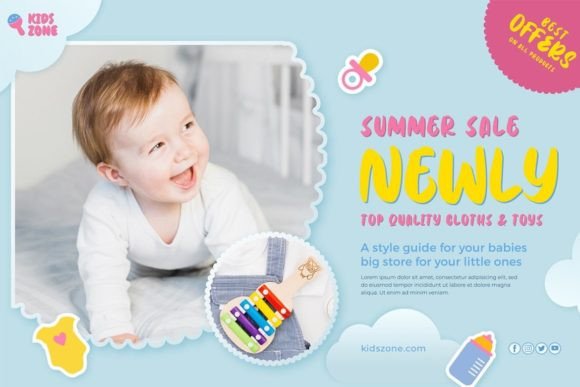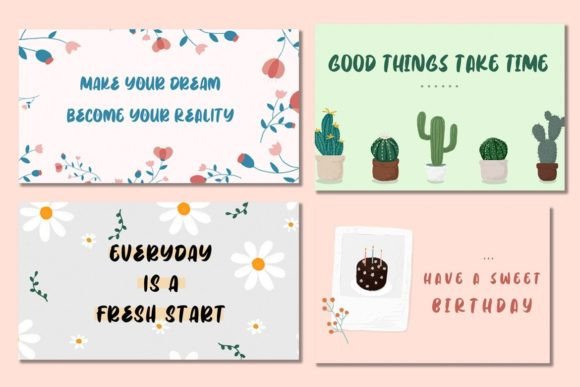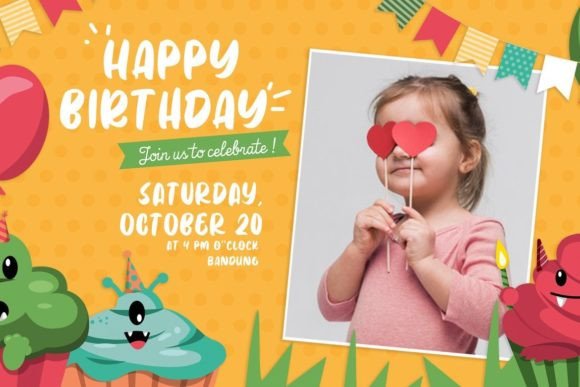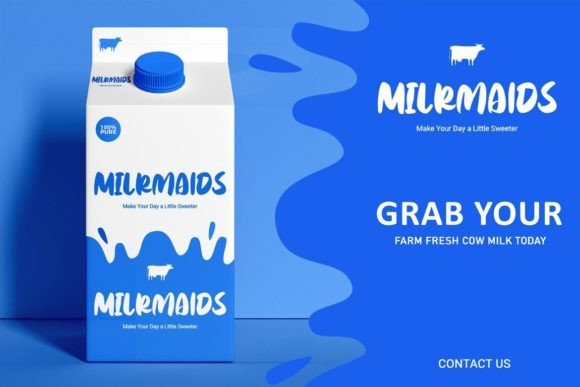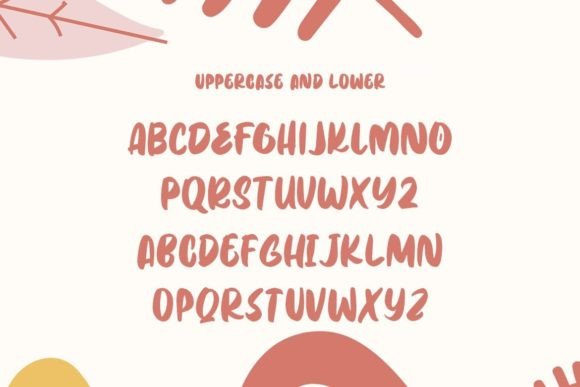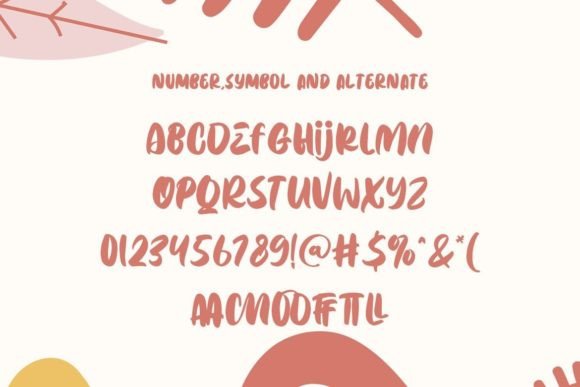
Creamies Font: The Fun and Playful Display Font to Brighten Up Your Designs
Are you tired of using the same old fonts in your designs? Do you want to add a touch of whimsy and quirkiness to your projects? Look no further than Creamies Font! This fun and playful display font is perfect for designers and crafters who want to add a bit of personality to their work.
What is Creamies Font?
Creamies Font is a display font that is designed to make a statement. It’s a fun and playful font that is perfect for headlines, titles, and other design elements where you want to grab attention. With its whimsical and quirky style, Creamies Font is sure to brighten up any design.
Characteristics of Creamies Font
So, what makes Creamies Font so special? Here are a few of its key characteristics:
- Fun and playful: Creamies Font is designed to be fun and playful, making it perfect for designs where you want to add a bit of personality.
- Whimsical and quirky: This font has a unique and quirky style that will set it apart from more traditional fonts.
- Display font: Creamies Font is designed specifically for display use, making it perfect for headlines, titles, and other design elements where you want to grab attention.
- Easy to read: Despite its playful style, Creamies Font is still easy to read, making it perfect for designs where you want to communicate a message.
How to Use Creamies Font
So, how can you use Creamies Font in your designs? Here are a few ideas:
- Headlines and titles: Use Creamies Font to create eye-catching headlines and titles that will grab attention.
- Social media graphics: Add a bit of personality to your social media graphics with Creamies Font.
- Invitations and announcements: Use Creamies Font to create fun and playful invitations and announcements.
- Branding and packaging: Add a bit of whimsy to your branding and packaging with Creamies Font.
Benefits of Using Creamies Font
So, why should you use Creamies Font in your designs? Here are a few benefits:
- Adds personality: Creamies Font adds a bit of personality to your designs, making them more engaging and interesting.
- Grabs attention: With its fun and playful style, Creamies Font is sure to grab attention and draw the eye.
- Easy to use: Creamies Font is easy to use and can be incorporated into a wide range of designs.
- Versatile: Creamies Font can be used in a wide range of designs, from social media graphics to branding and packaging.
Tips for Using Creamies Font
Here are a few tips for using Creamies Font in your designs:
- Use it sparingly: While Creamies Font is fun and playful, it can be overwhelming if used too much. Use it sparingly to add a bit of personality to your designs.
- Pair it with other fonts: Creamies Font can be paired with other fonts to create a unique and interesting look.
- Experiment with colors: Creamies Font looks great in a wide range of colors, so don’t be afraid to experiment and find the perfect color for your design.
In conclusion, Creamies Font is a fun and playful display font that is perfect for designers and crafters who want to add a bit of personality to their work. With its whimsical and quirky style, Creamies Font is sure to brighten up any design. Whether you’re creating headlines and titles, social media graphics, or branding and packaging, Creamies Font is a great choice. So why not give it a try and see the difference it can make in your designs?